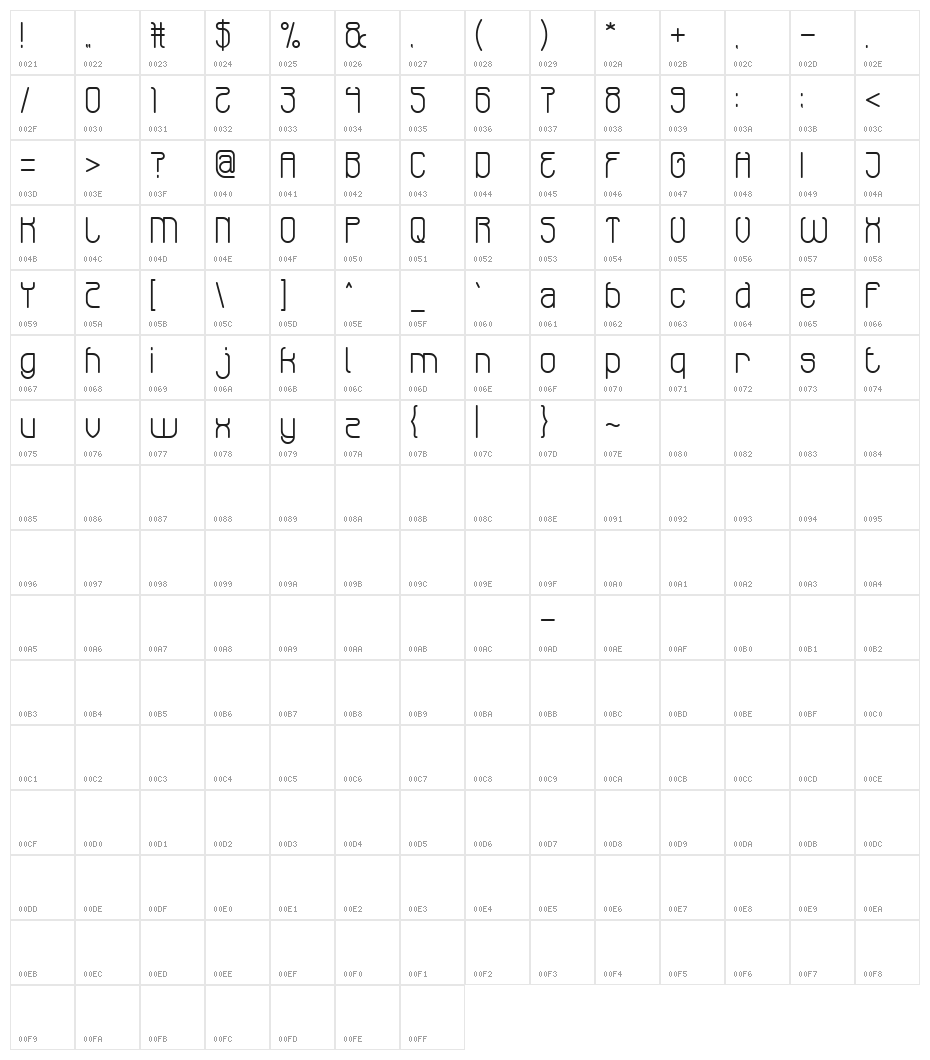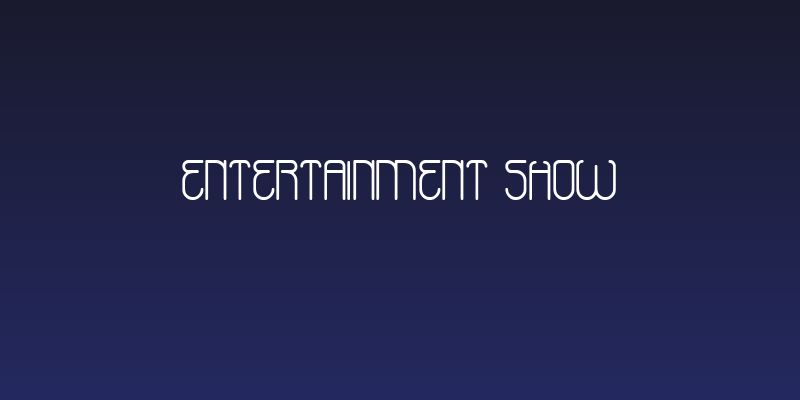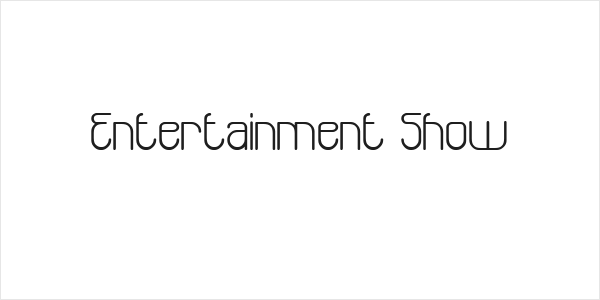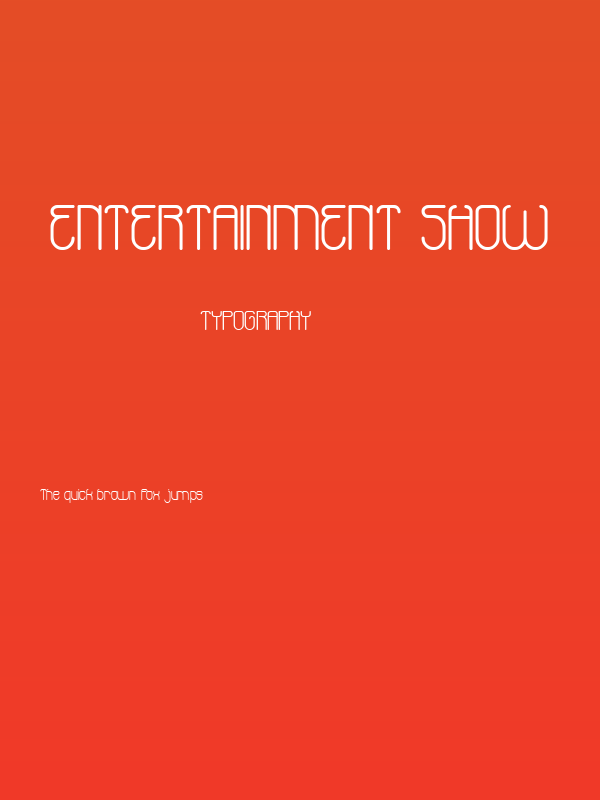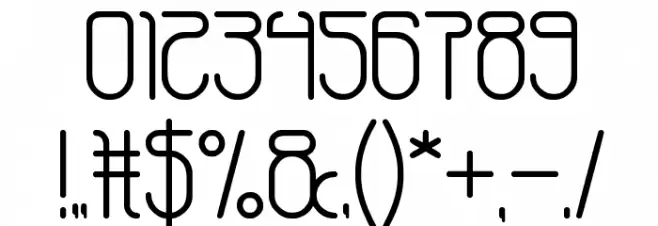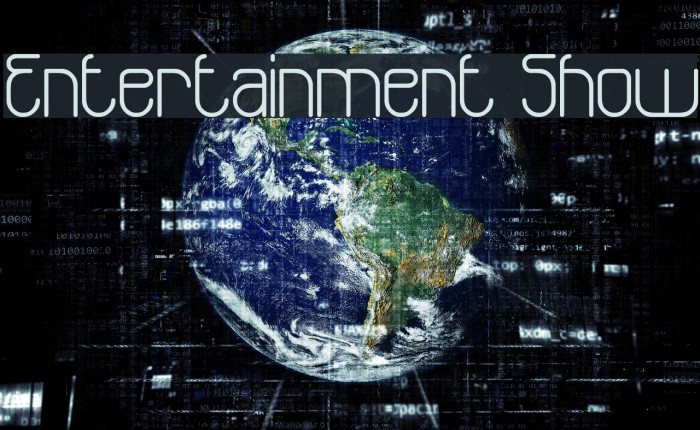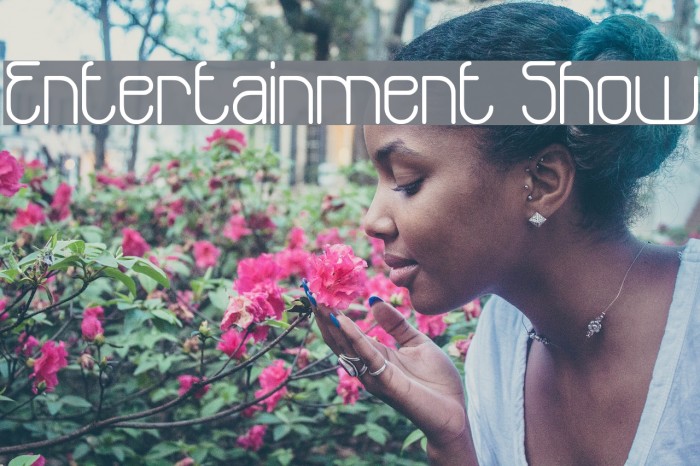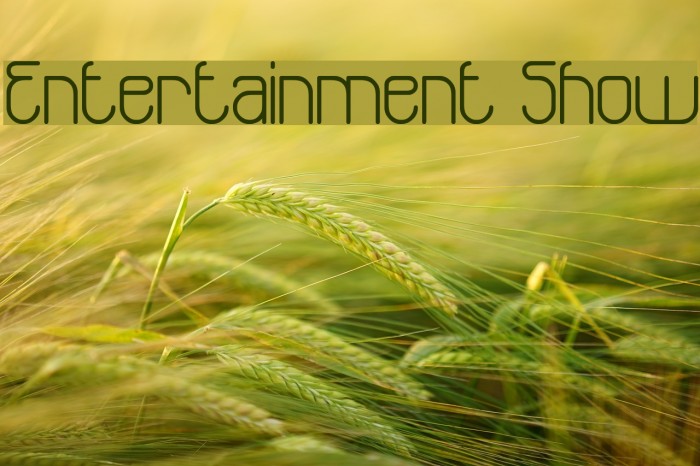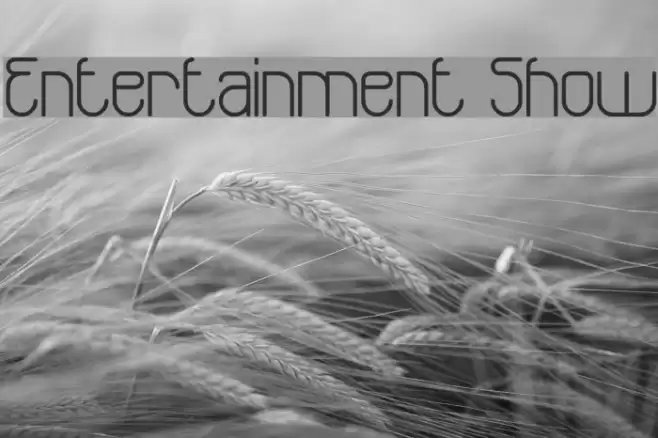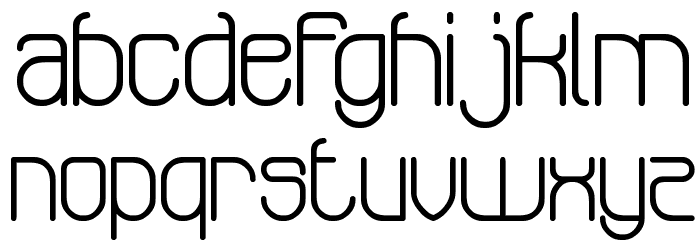
Entertainment Show Font
Entertainment Show Description
This font features a modern, geometric design with rounded edges and a clean, streamlined appearance. The characters are uniform in width, creating a balanced and harmonious look. The uppercase letters are bold and distinct, while the lowercase letters maintain a consistent style with slightly softer curves. The numerals are clear and easy to read, complementing the overall aesthetic. Special characters are well-integrated, maintaining the font's cohesive design. This font is ideal for projects that require a contemporary and stylish touch.
| Use Case | Headlines, Logos, Digital Media |
| Proposed Projects | Ideal for branding, advertising, digital media, and modern web design projects. |